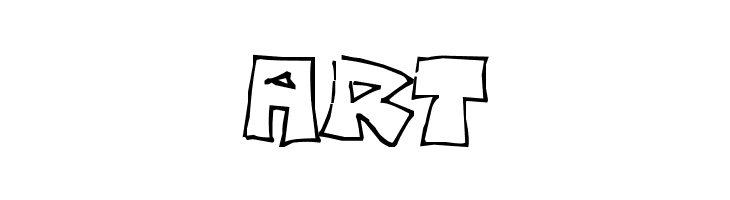
A bold, rounded font with playful, heart-shaped details.
A bold, italicized font with a futuristic and sporty design.
A playful, graffiti-inspired font with bold, irregular strokes and a hand-drawn look.
A bold, playful font with uniform strokes and whimsical elements.
A playful, handwritten font with dynamic strokes and unique flourishes.
A bold, three-dimensional font with a vintage, comic book style.
A chaotic, splattered font with irregular shapes and varying stroke thicknesses.